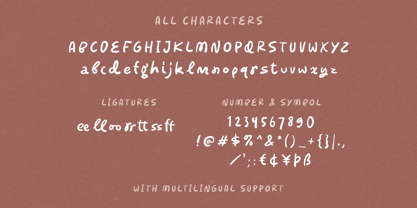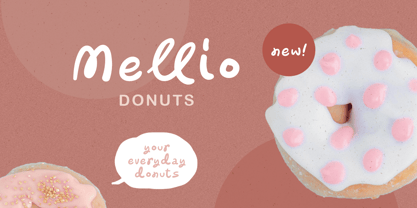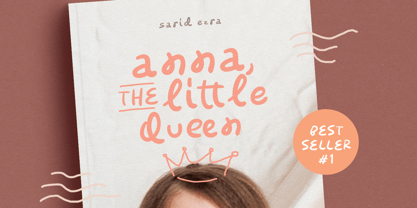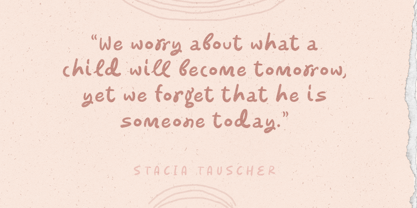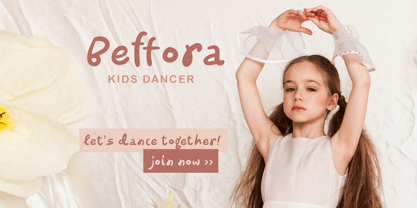
Sterra Moon
by Sarid Ezra
The Sterra Moon Font Family was designed by Sarid Ezra and published by Sarid Ezra. Sterra Moon contains 1 styles. More about this family
Sterra Moon is a quirky handwritten font that will make your design more cheerful! You can use this font for your brand, your cover book, kids event, or even your quote. This font also including double ligatures that will make this font more handy. This font also support multilingual.
Designers: Sarid Ezra
Foundry: Sarid Ezra